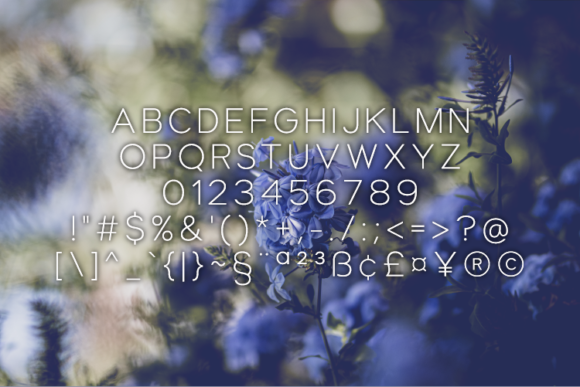
Clements Font: Elevate Your Design with Modern Sans Serif Perfection
In the realm of typography, a font can make or break the visual appeal of a design project. For designers and crafters seeking a modern sans serif font that embodies geometric perfection, Clements Font is an exceptional choice. Precisely designed to cater to the needs of contemporary graphic design, Clements is a versatile typeface that can elevate any project with its striking beauty and sense of professionalism.
What is Clements Font?
Clements Font is a modern sans serif typeface, meticulously crafted to deliver a clean and geometric aesthetic. Its design is centered around creating a perfect balance of form and function, making it an ideal choice for a wide range of applications. Whether you’re working on a logotype, a lengthy text, or any other typography project, Clements is engineered to impress.
Key Features of Clements Font
- Geometric Perfection: Clements boasts a geometric design that ensures clarity and precision, making it perfect for modern graphic design projects.
- Versatility: This font is incredibly versatile, suitable for use in logotypes, body text, and everything in between.
- Modern Aesthetic: Clements adds a contemporary touch to any design, ensuring your project stands out with a fresh and modern look.
- Professionalism: The clean lines and balanced design of Clements convey a sense of professionalism, ideal for brands looking to make a strong impression.
Applications of Clements Font
Clements Font’s adaptability makes it a valuable asset for various design projects. Here are some of the areas where Clements truly shines:
- Logotypes: The unique geometric design of Clements makes it a stunning choice for logotypes, offering a distinctive look that can help brands stand out.
- Digital and Print Media: Whether it’s for a website, mobile app, brochure, or poster, Clements provides a crisp and clear appearance that enhances readability and visual appeal.
- Advertising: For advertisements, where grabbing attention is crucial, Clements’ modern aesthetic ensures your message is delivered with impact.
- Packaging: The font’s clean and professional look makes it suitable for product packaging, adding a touch of sophistication to any product.
Why Choose Clements Font?
Choosing Clements Font for your design project comes with numerous benefits. Its modern sans serif design ensures your work looks contemporary and relevant. The geometric perfection of Clements not only makes it visually appealing but also highly legible, which is crucial for longer texts. Moreover, the font’s versatility means you can use it across various platforms and materials, providing consistency to your brand’s visual identity.
Tips for Using Clements Font Effectively
To maximize the potential of Clements Font in your designs, consider the following tips:
- Pair with Complementary Fonts: While Clements is versatile on its own, pairing it with complementary fonts can add depth and interest to your design.
- Experiment with Weights: If Clements comes in multiple weights, experiment with them to create visual hierarchy and emphasis in your text.
- Consider Color and Contrast: Ensure that the color and contrast of your text provide sufficient readability against the background.
Clements Font is a powerful tool for designers and crafters looking to infuse their projects with a modern sans serif typeface that boasts geometric perfection. Its versatility, aesthetic appeal, and professional look make it an excellent choice for a wide range of applications. By incorporating Clements into your design repertoire, you’re equipping yourself with a font that can elevate your work and make a lasting impression on your audience.
Whether you’re aiming to create a stunning logotype, enhance the readability of a long text, or simply add a modern touch to your design, Clements Font is up to the task. Explore its potential and discover how it can transform your typography and overall design projects.